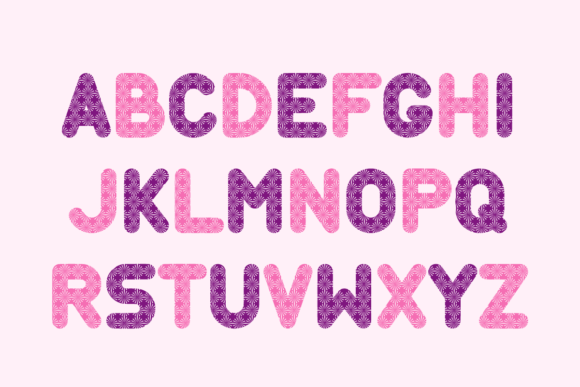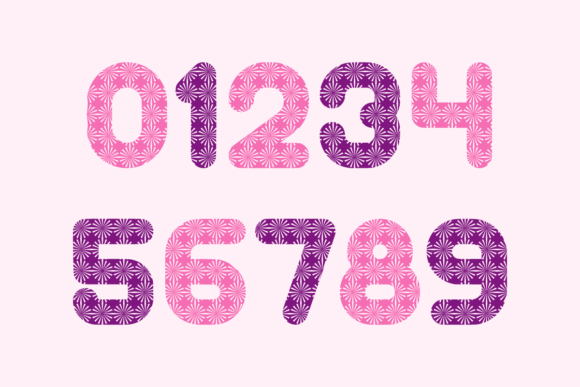
Babe Font: The Ultimate Decorative Color Font for Creative Projects
Are you a designer, crafter, or DIY enthusiast looking for a font that can add a touch of cuteness and loveliness to your creative projects? Look no further than the Babe Font! This adorable decorative color font is perfect for enhancing your designs, from stickers and t-shirts to book covers, logos, branding, and many other creative ideas.
What is Babe Font?
Babe Font is a unique and charming decorative color font that is sure to capture the hearts of designers and crafters alike. Its playful and whimsical design makes it an ideal choice for projects that require a touch of personality and flair. Whether you’re creating stickers, t-shirts, or book covers, Babe Font is the perfect addition to your design toolkit.
Features of Babe Font
So, what makes Babe Font so special? Here are just a few of its key features:
- Cute and Lovely Design: Babe Font boasts a delightful and charming design that is sure to add a touch of whimsy to your creative projects.
- Decorative Color Font: Unlike traditional fonts, Babe Font comes in a range of colors, allowing you to add an extra pop of personality to your designs.
- Versatile: Babe Font is perfect for a wide range of creative projects, from stickers and t-shirts to book covers, logos, and branding.
- Easy to Use: Babe Font is incredibly easy to use, making it accessible to designers and crafters of all skill levels.
Uses for Babe Font
So, what can you use Babe Font for? The possibilities are endless! Here are just a few ideas to get you started:
- Stickers: Add a touch of personality to your stickers with Babe Font’s cute and colorful design.
- T-Shirts: Create eye-catching t-shirts with Babe Font’s playful and whimsical design.
- Book Covers: Add a touch of charm to your book covers with Babe Font’s lovely and decorative design.
- Logos and Branding: Use Babe Font to create unique and memorable logos and branding for your business or personal projects.
- Crafting: Babe Font is perfect for a wide range of crafting projects, from scrapbooking to card making.
Why Choose Babe Font?
With so many fonts available, why choose Babe Font? Here are just a few reasons why Babe Font stands out from the crowd:
- Unique Design: Babe Font boasts a unique and charming design that is sure to set your creative projects apart.
- High-Quality: Babe Font is a high-quality font that is designed to deliver exceptional results.
- Easy to Use: Babe Font is incredibly easy to use, making it accessible to designers and crafters of all skill levels.
Tips and Tricks for Using Babe Font
Here are a few tips and tricks for getting the most out of Babe Font:
- Experiment with Colors: Babe Font comes in a range of colors, so don’t be afraid to experiment and find the perfect color for your project.
- Mix and Match: Try mixing and matching Babe Font with other fonts to create a unique and eye-catching design.
- Use on Different Materials: Babe Font looks great on a wide range of materials, from paper to fabric to metal.